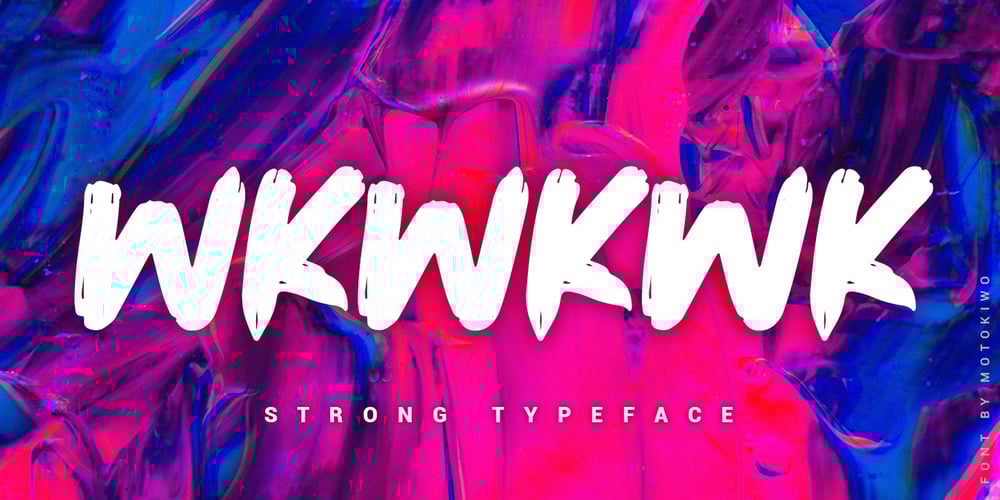
Wkwkwk Font Family was designed by Anton Cahyono and published by Motokiwo. Wkwkwk contains 1 styles and family package options. Wkwkwk – a strong and bold typeface with inky brush style. This font is great for headline, specially for adventure or travel projects. It’s all caps with multilingual support and textured brush strokes will catch every eyes into your projects. Wkwkwk is a word to express “laugh out loud” for Indonesian millennials. I create this font for adventure purpose, that’s fun but still stronger.